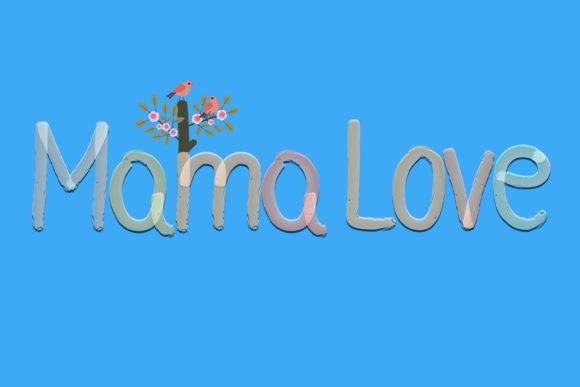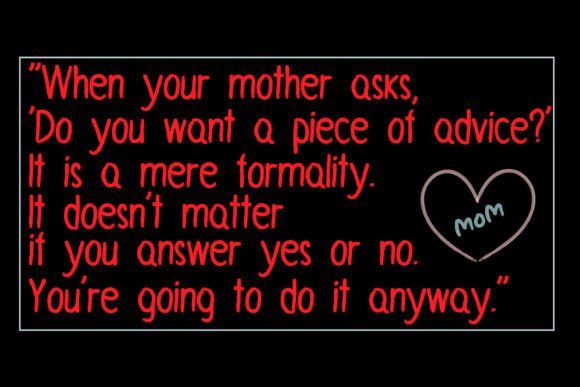
Add Playful Charm with Mama Love Font
The Mama Love font is a fun and quirky handwritten script designed to bring a lively and creative spirit to your projects. Whether you’re working on logos, invitations, social media graphics, or craft designs, Mama Love adds a unique personality that makes your work stand out.
Perfect for Crafty Projects, Logos, and Invitations
The Mama Love font shines in various creative applications such as branding, event invitations, personalized gifts, social media posts, and decorative designs. Its playful strokes and quirky style create a fun and inviting vibe that captures attention.
A Handwritten Script with Unique Personality
Each character in the Mama Love font is crafted to deliver smooth, expressive strokes that balance readability with whimsy. The font combines simplicity with creativity, making it suitable for headlines, logos, and decorative text alike.
Despite its quirky design, the Mama Love font maintains excellent readability across various sizes. Whether used for logos, titles, or smaller text elements, it balances clarity with fun, making it a versatile choice for many creative projects.
Make Your Designs Shine with Playful Energy